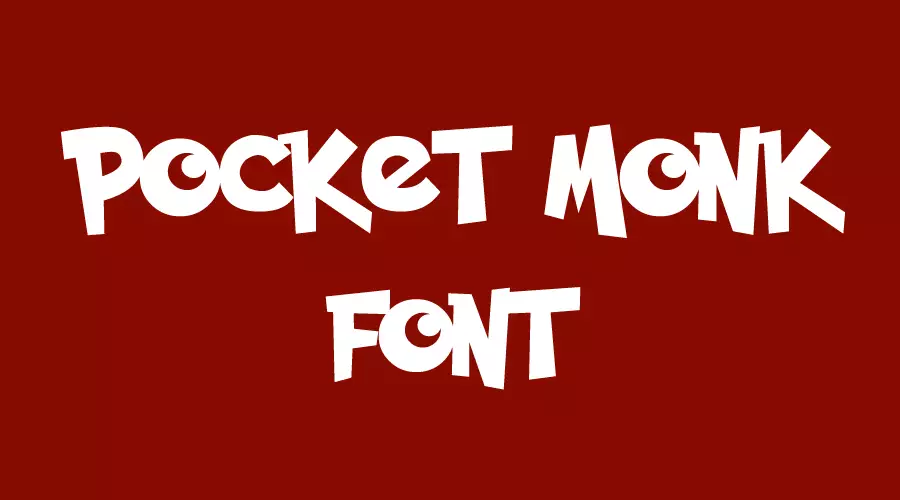
Pocket Monk Font
About Pocket Monk Font
Pocket Monk is a cartoon font that resembles the Pokemon anime logo, designed by Chequered Ink in 2016.
The Pocket Monk font is a great choice for anyone looking for a unique and cartoon font. It has a strong, bold style that makes it perfect for headlines, logos, and other design projects. It also great for children’s books and other creative projects.